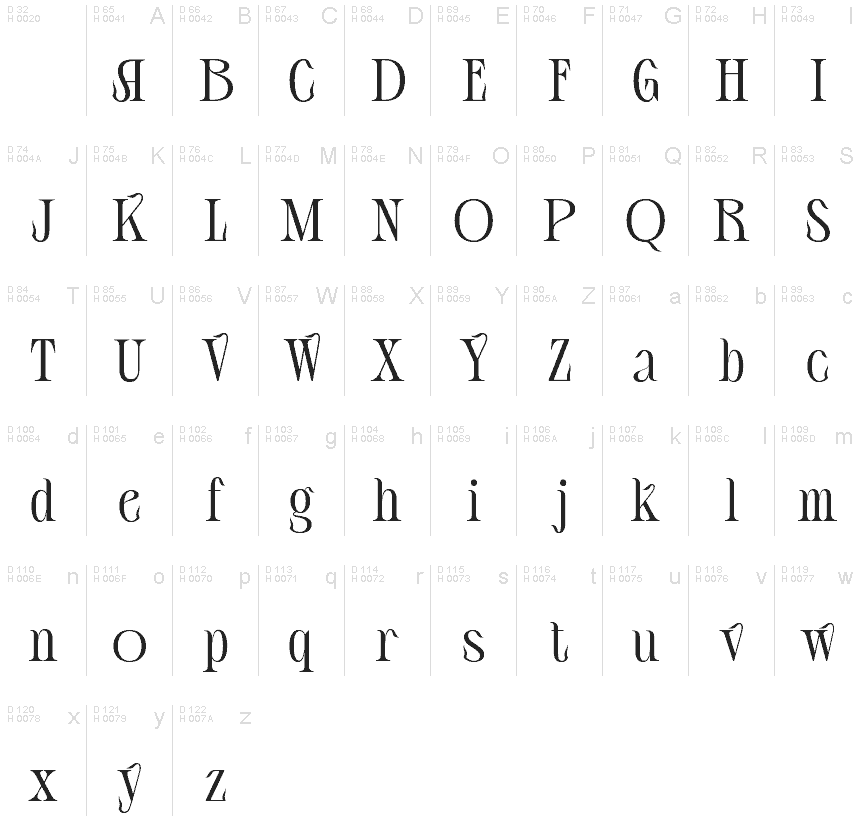
Ceyla Demo Regular
Ceyla font by Craft Supply Co is a sophisticated serif with a beautifully condensed width. Ornate and expressive, it combines artistic flair with calligraphic influence to bring elegance to its designs. The creative display font can be modernly applied to personal projects, mainly short-titled displays where the consonants are exaggerated.
Use this free typed face in poster headlines, magazine or book covers, title logos, design labels, special invitations and announcements.